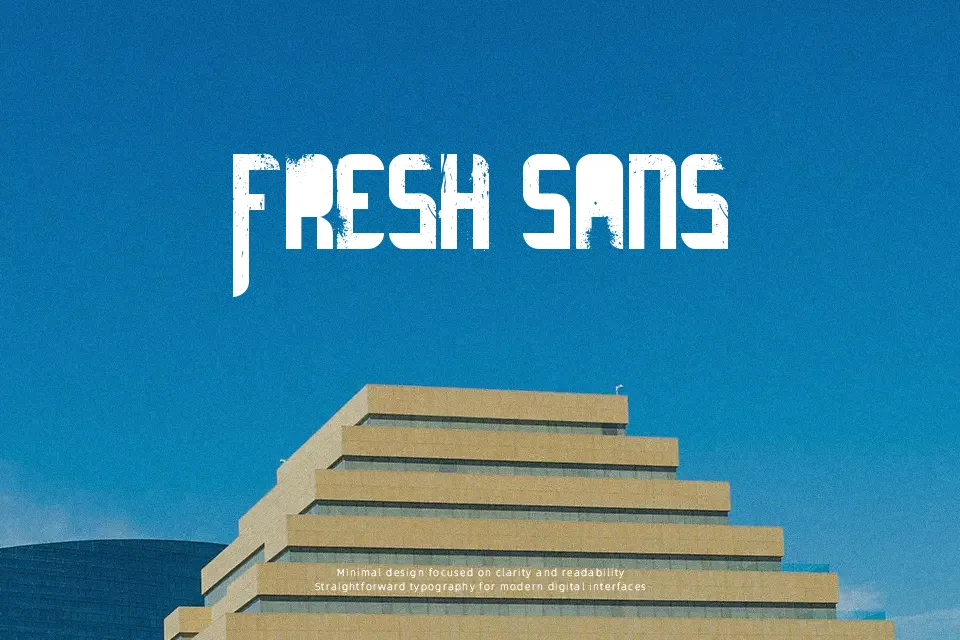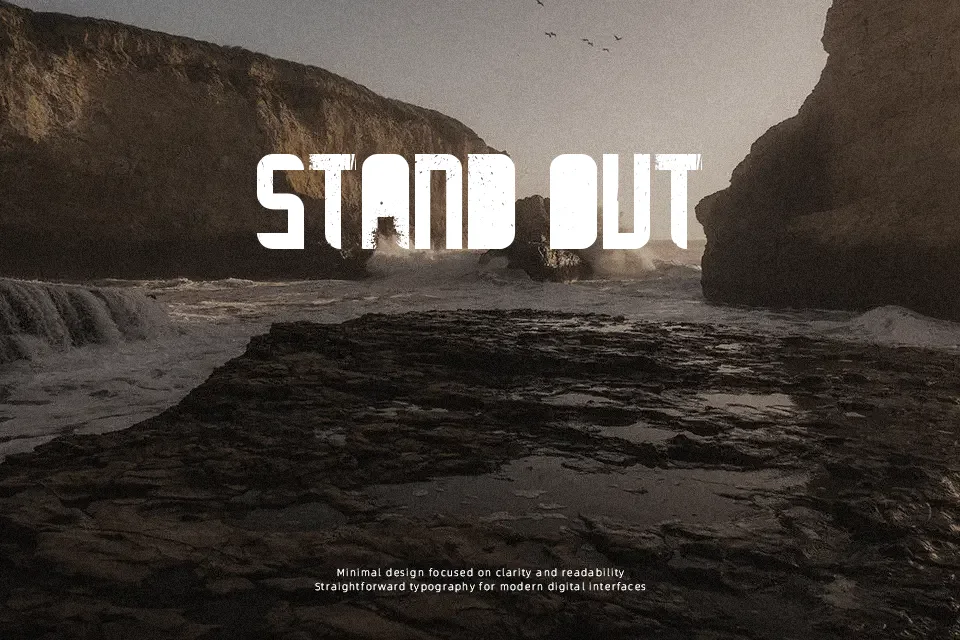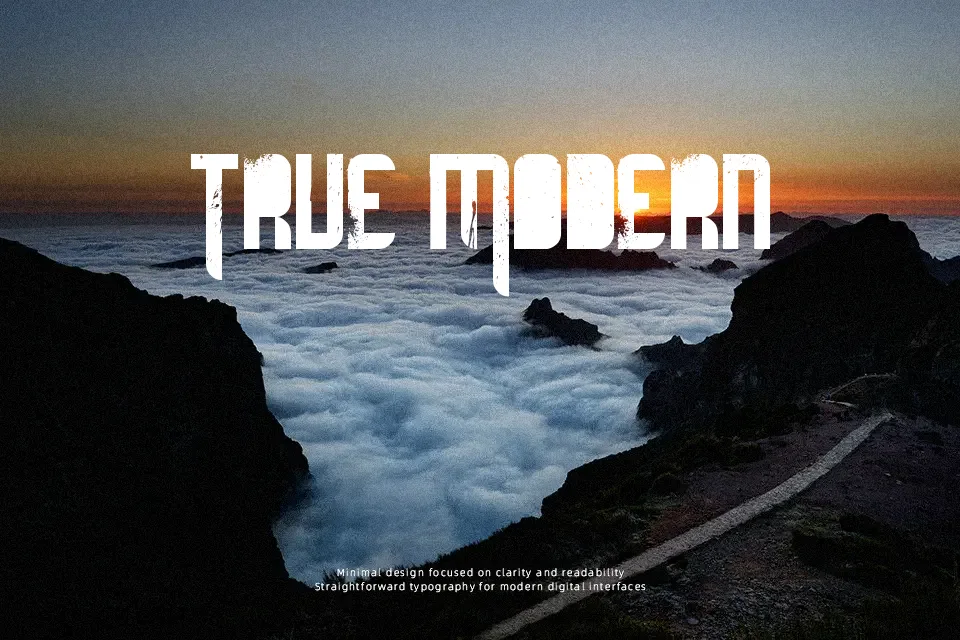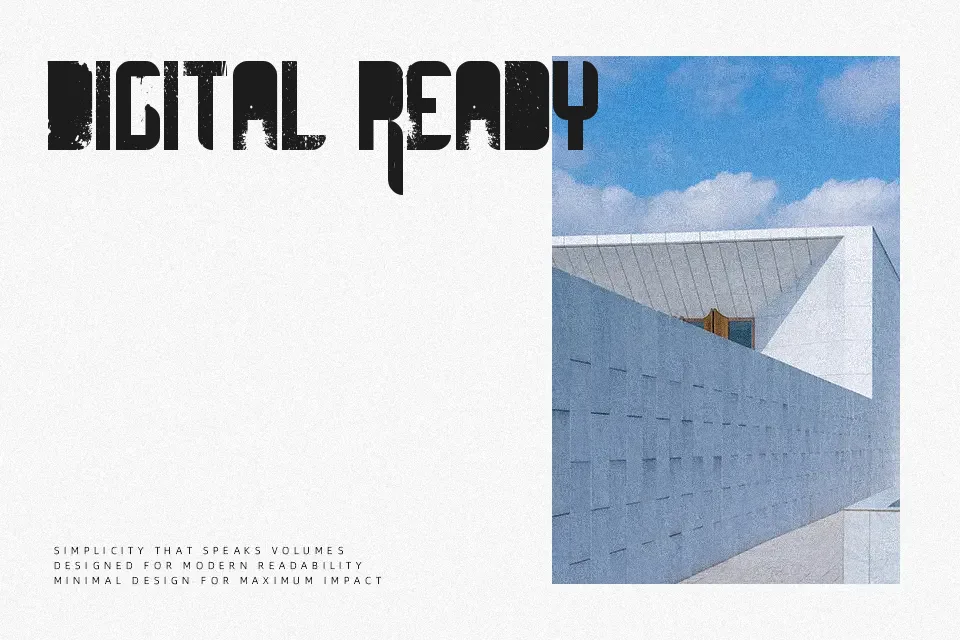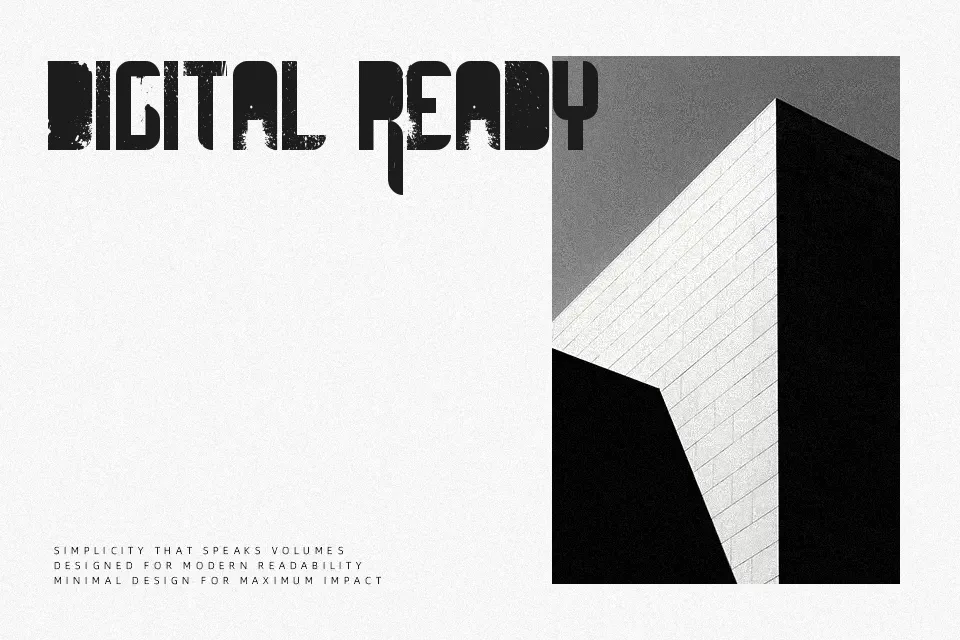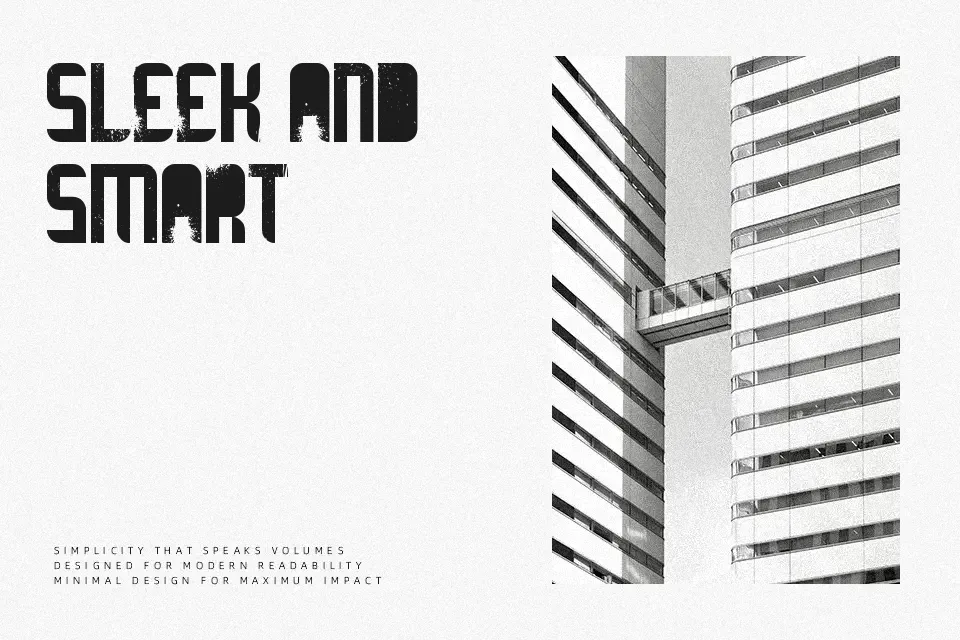
Ultimate Midnight Font
Ultimate Midnight Font performs best when deployed across large-scale display formats where its aggressive erosion can command visual attention. The letterforms exhibit solid underlying sans-serif proportions compromised by jagged cutouts, irregular distress marks, and corroded stroke edges. Moderately compact spacing maintains structural unity across short titles, allowing the heavy weights to establish immediate graphic weight on album sleeves or event flyers. However, the chaotic surface breakdown significantly impedes readability in small running copy or detailed interfaces. Dense paragraphs quickly become illegible as fine distressing merges together, confirming that the typeface excels strictly as an expressive accent rather than a functional reading tool.
Best For: music festival posters, streetwear apparel graphics, heavy metal album covers, horror video game titles
Not Ideal For: long paragraph body text, mobile application user interfaces, legal contract documents, dense spreadsheet tables
Perfect for film, gaming, and headline, with a bold and decorative style.